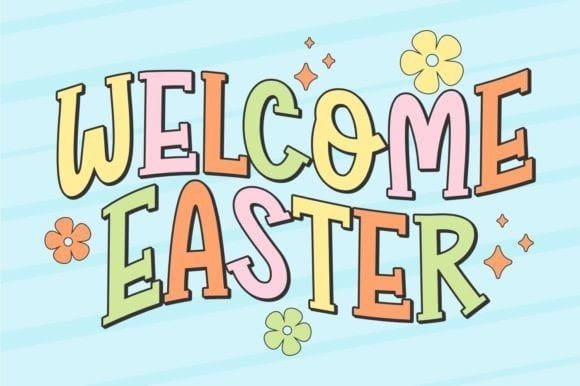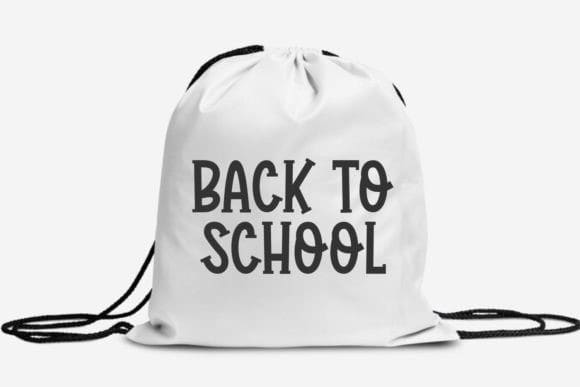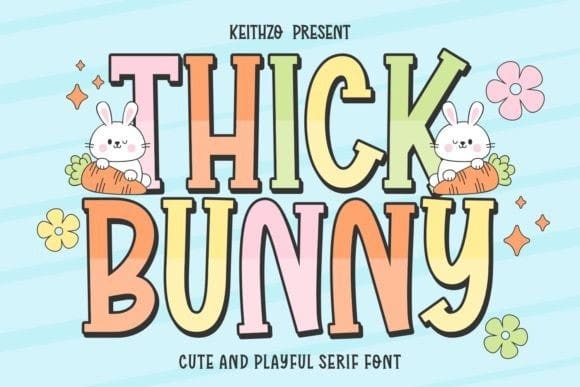
Thick Bunny Font
Thick Bunny Font is a fun and adorable serif typeface that brings a playful vibe to your projects. With its chubby letters and friendly demeanor, this font adds a touch of whimsy to any design. Perfect for children’s books, greeting cards, or anything that needs a dose of cuteness, Thick Bunny is sure to bring smiles to your audience’s faces.